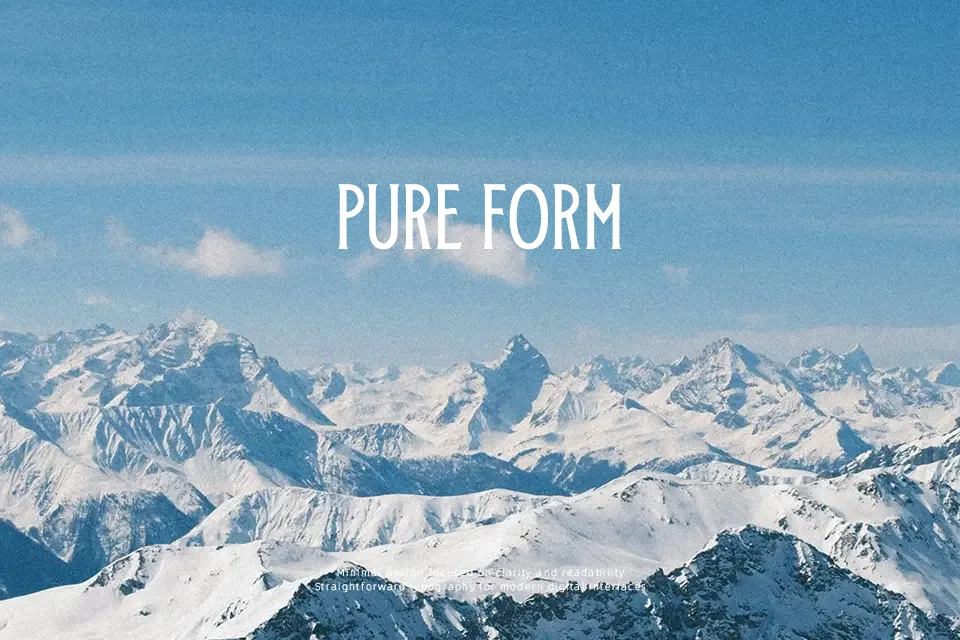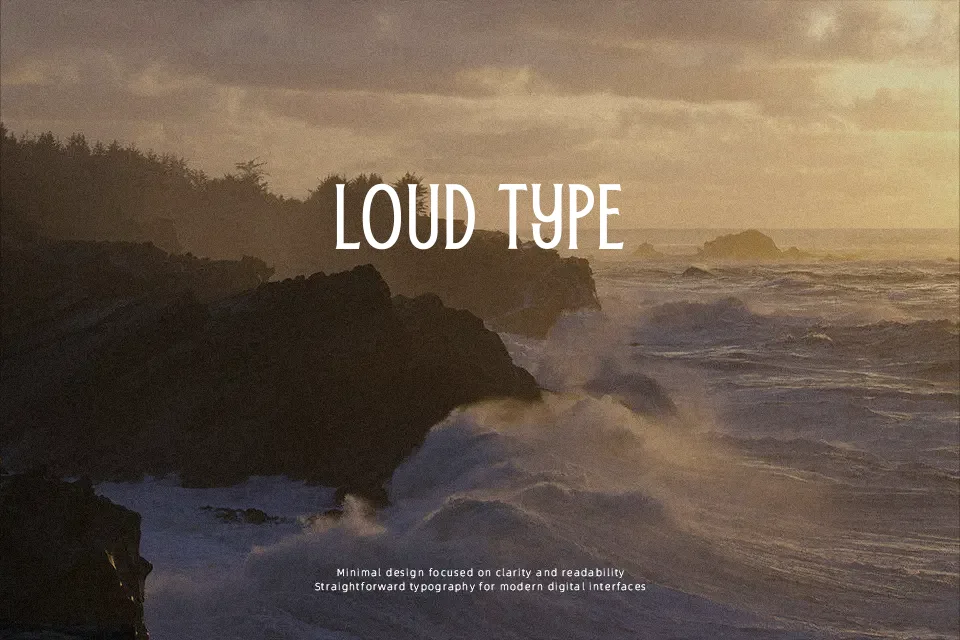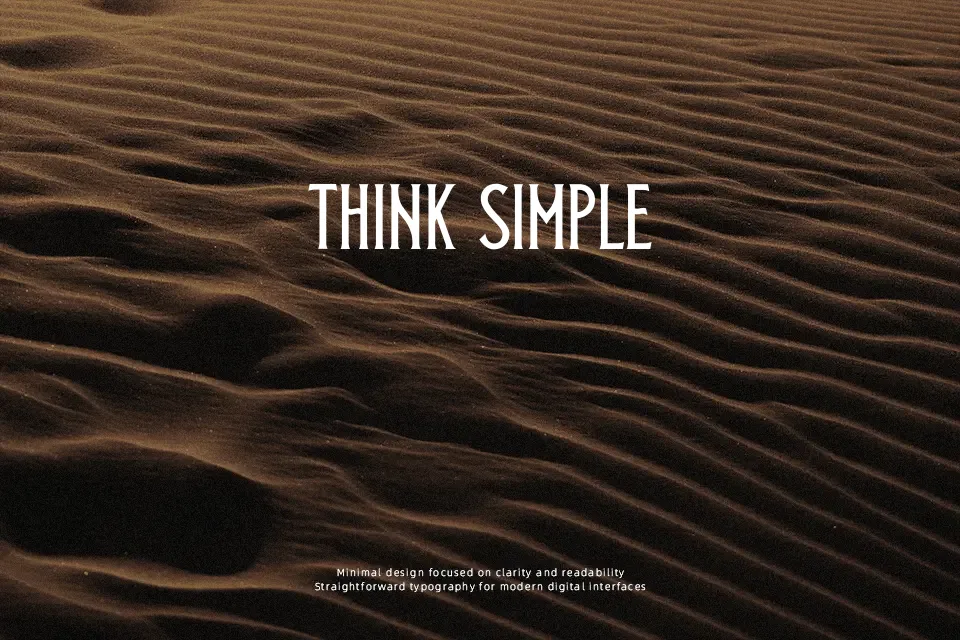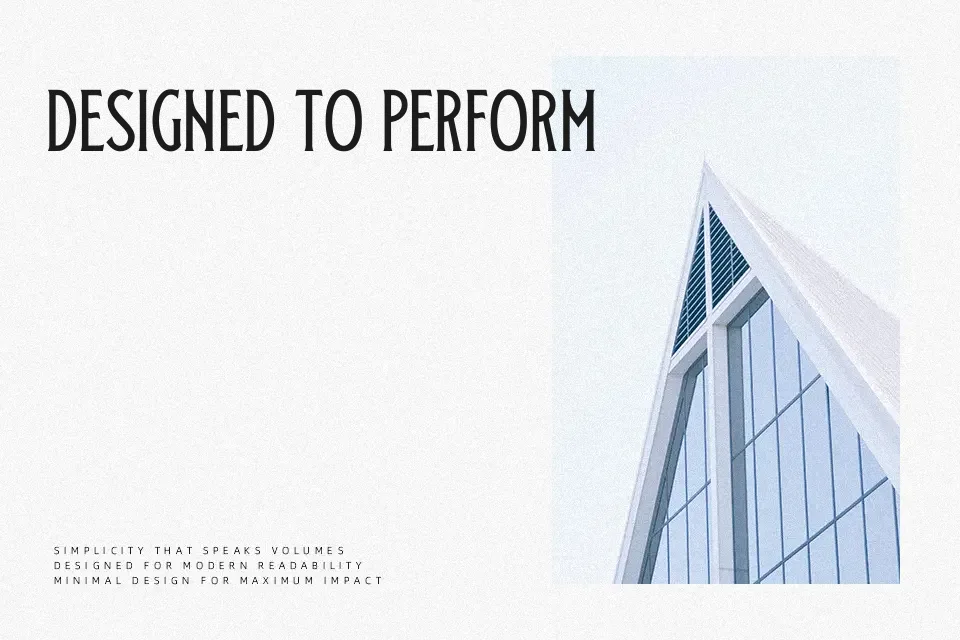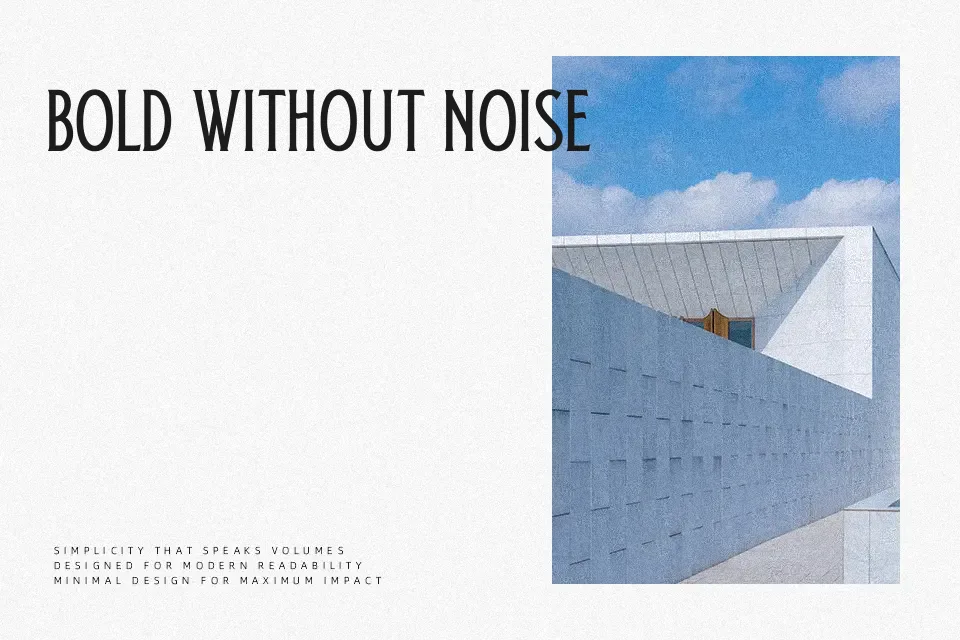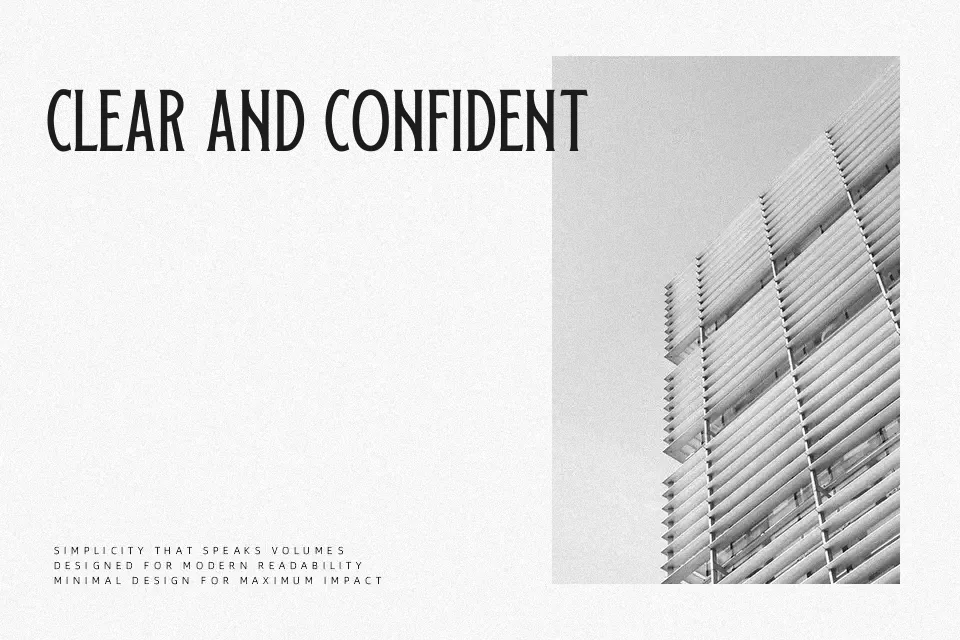
Skedaddle Font
Characterized by slender vertical proportions and subtle terminal flares, Skedaddle Font introduces a stylized take on condensed display lettering. The design features moderate stroke contrast with crisp, clean joins that give each glyph an upright presence. Balanced spacing keeps uppercase and lowercase characters legible in short phrases, though the tight letter tracking performs best when set at large scale. Prominent ascenders and sculpted terminals make the typeface effective for decorative signage, product labels, and editorial headlines. However, the compact letter structures reduce comfort in extended reading, making the design unsuitable for continuous body text. Overall, the typeface provides striking visual punch across prominent display compositions.
Best For: vintage poster headlines, retro product packaging, storefront signboards, craft beverage labels
Not Ideal For: continuous book paragraphs, mobile application body text, dense spreadsheet data, small technical footnotes
Perfect for branding, headline, and logo, with a classic and condensed style.